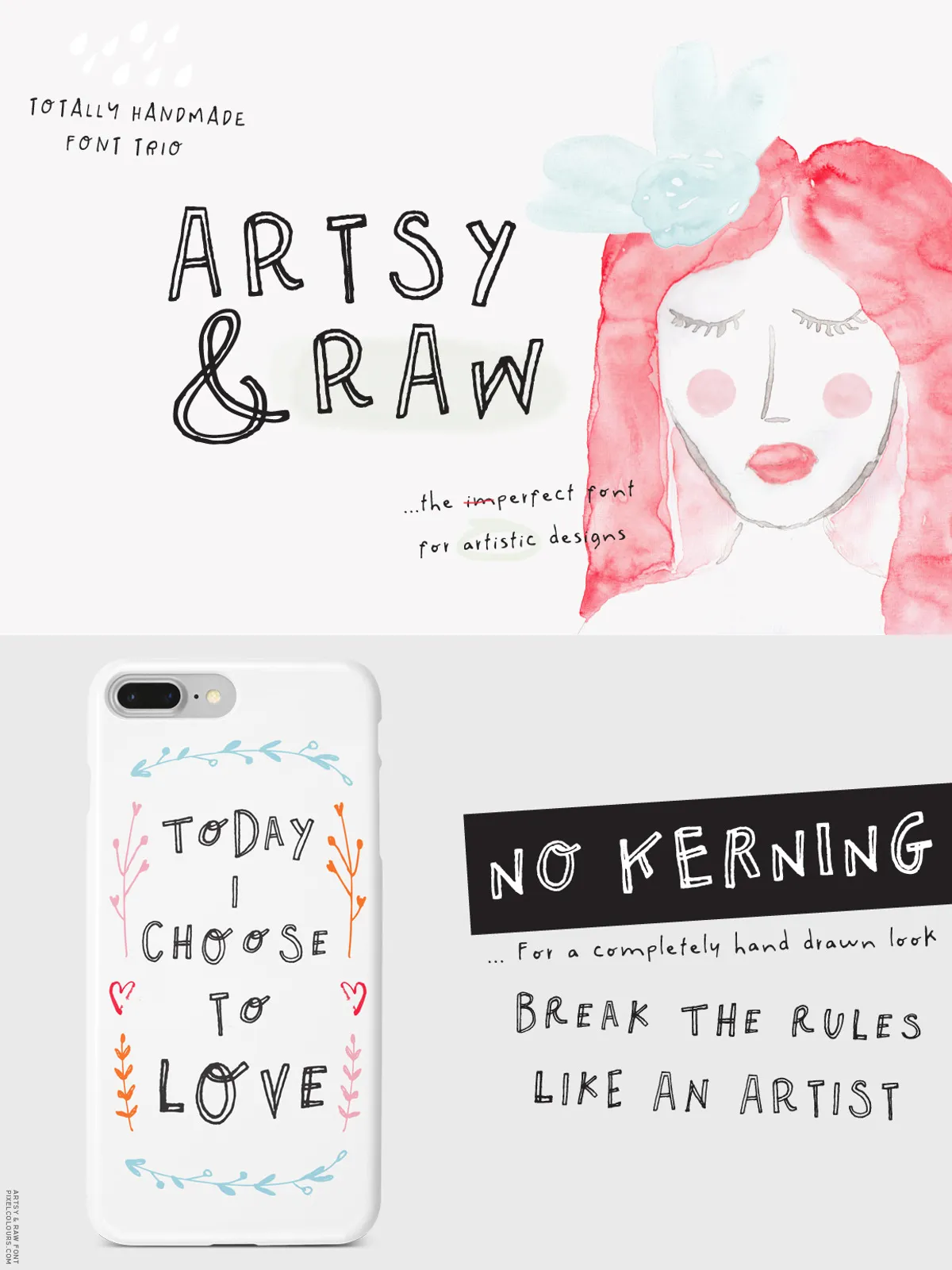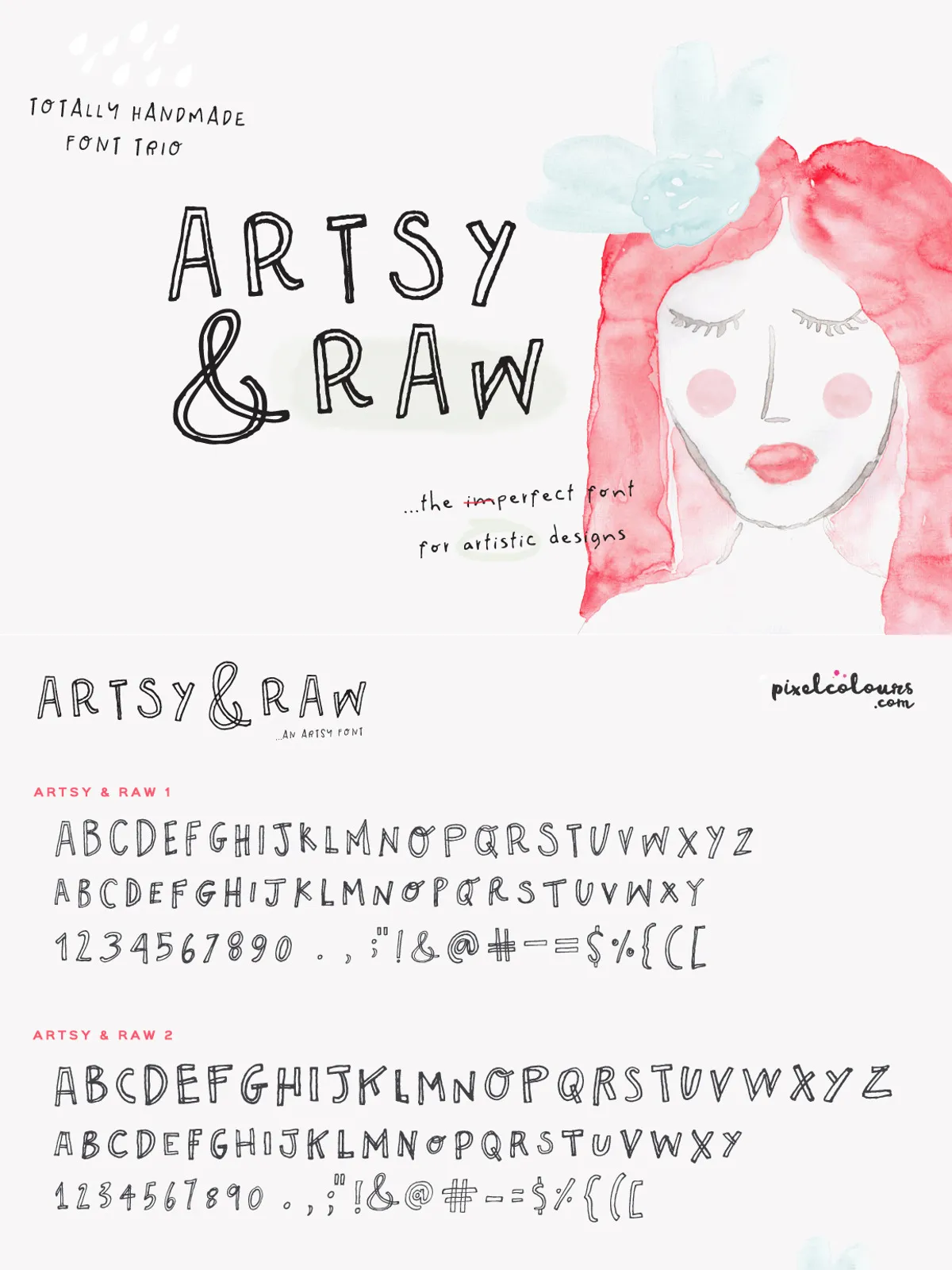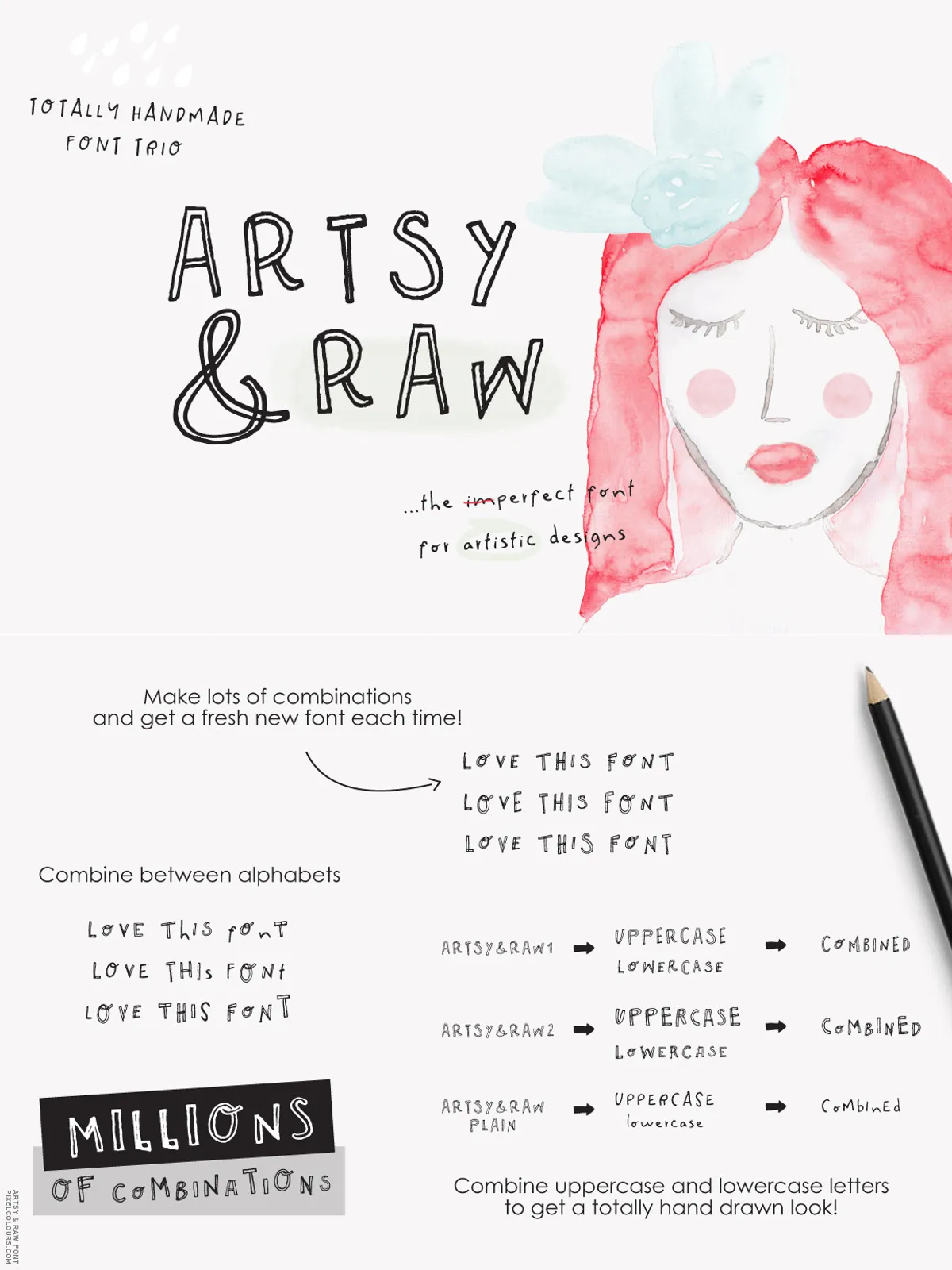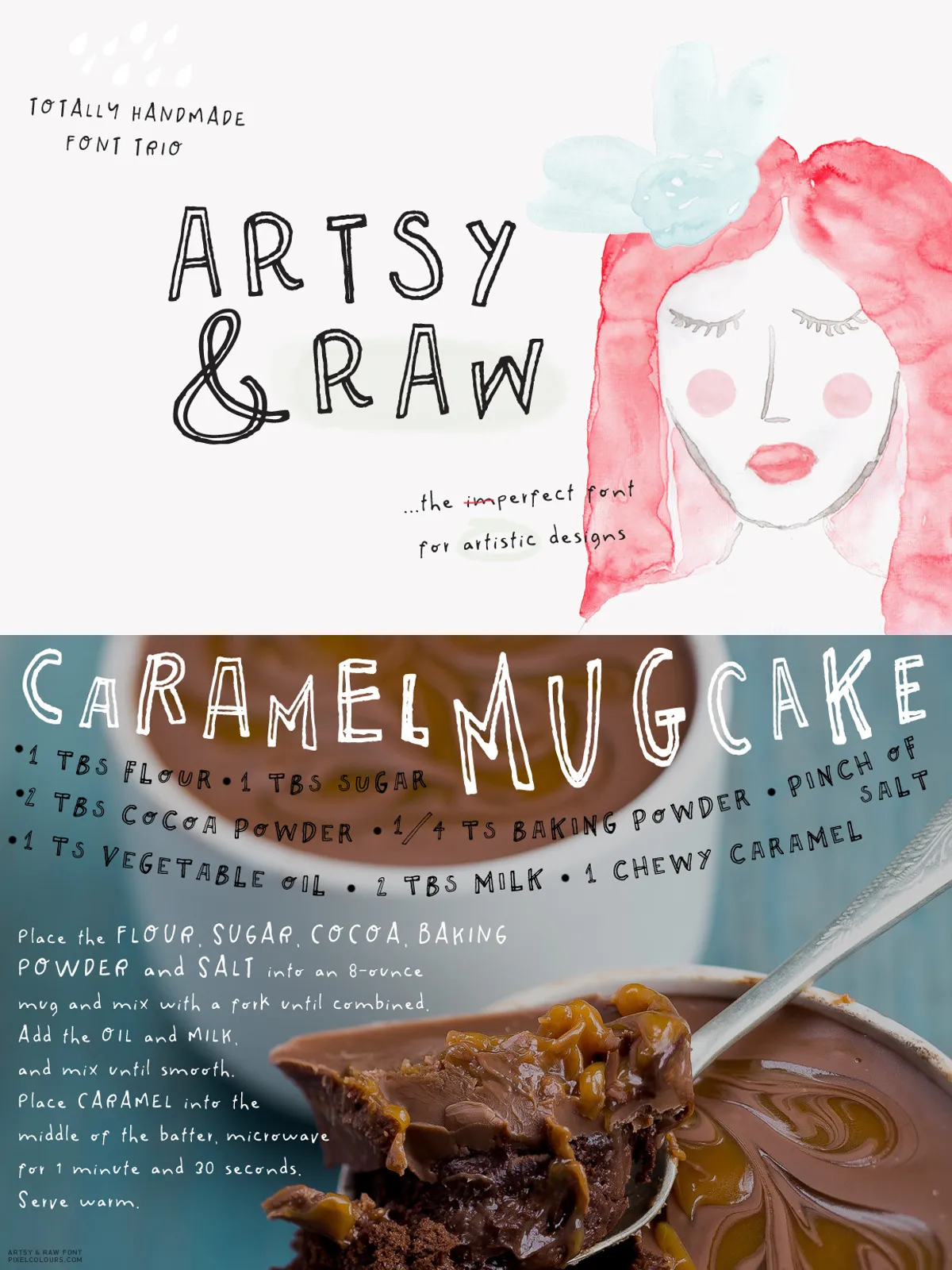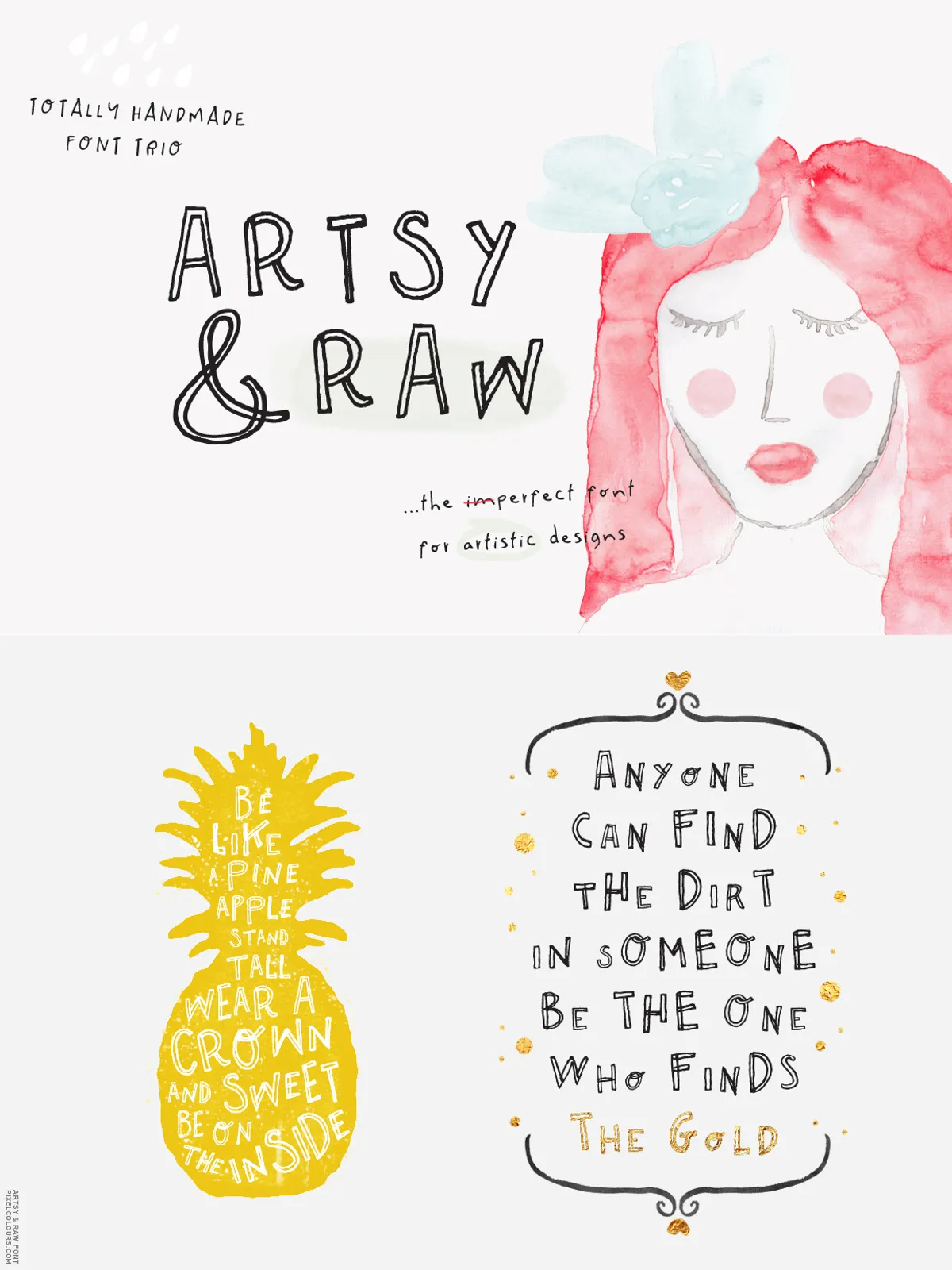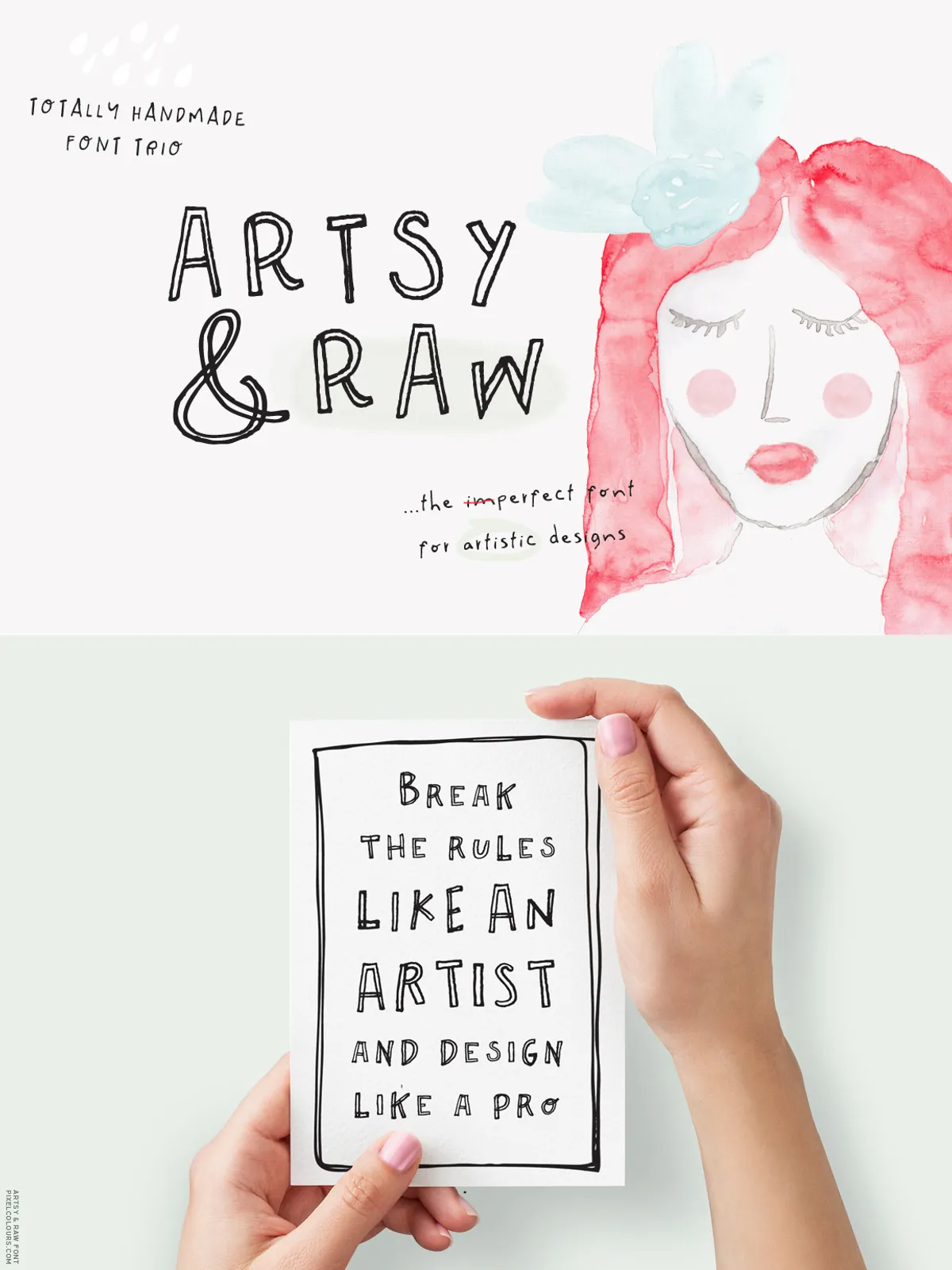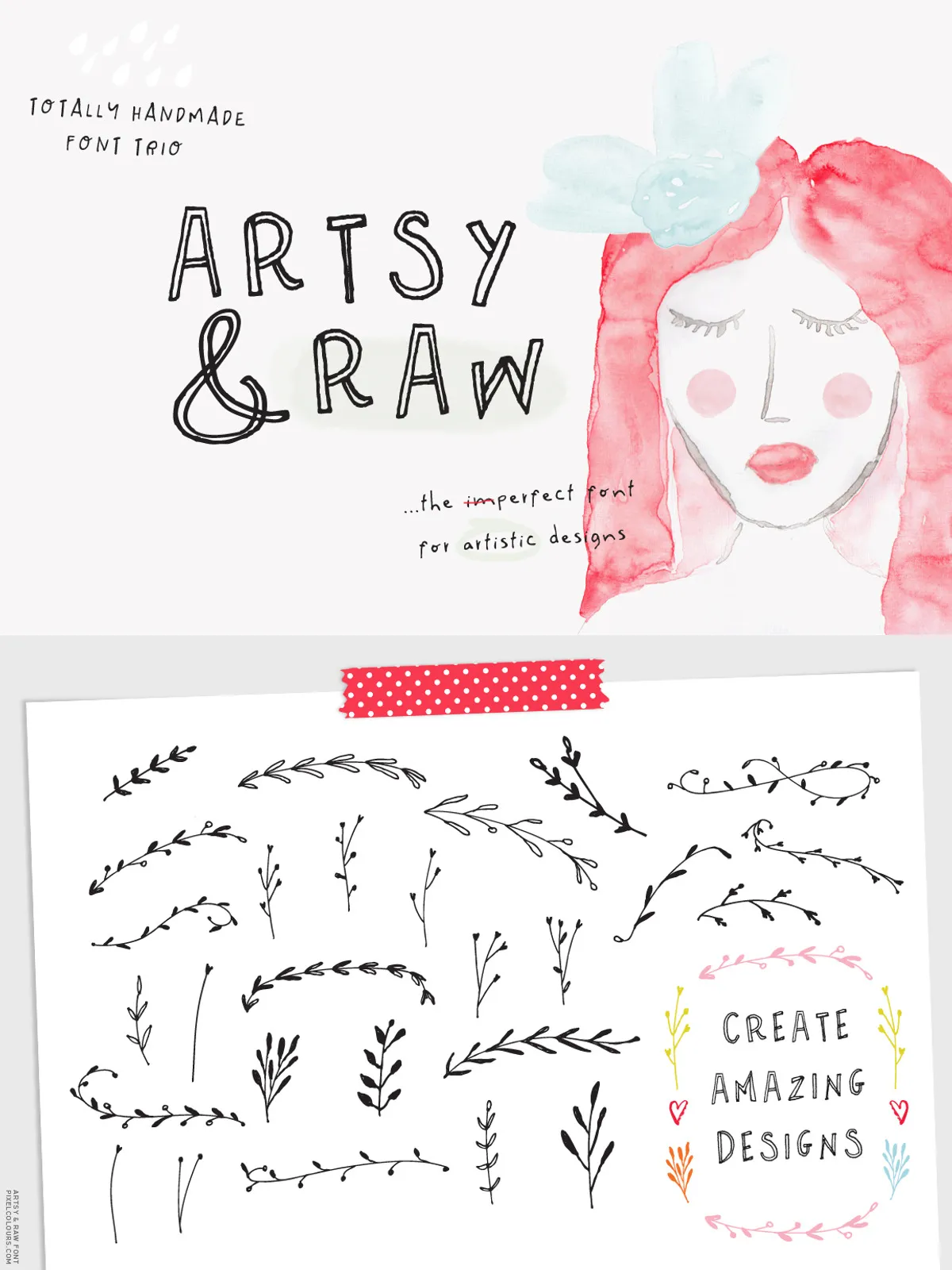
Designers, marketers, and creators looking for a truly organic feel need a typeface that feels hand‑crafted yet professionally refined. Artsy and Raw delivers exactly that. Every glyph is intentionally imperfect, giving you the charm of a handwritten sketch while maintaining the precision required for high‑quality branding. The family includes three distinct styles—Artsy and Raw 1, Artsy and Raw 2, and Artsy and Raw Plain—each packed with uppercase, lowercase, numbers, and punctuation.
Why Choose Artsy and Raw?
• Authentic Hand‑Drawn Aesthetic – The subtle irregularities and organic strokes make every word feel personal and unique.
• Versatile Application – Ideal for quotes, logos, branding, greeting cards, invitations, and more.
• Bonus Creative Assets – 150 hand‑drawn vector ornaments, watercolor flowers, and hearts are included to accelerate your workflow.
• Complete Character Set – Full alphabet, numerals, and punctuation give you total typographic freedom.
Key Features That Drive Your Projects Forward
- Hand‑Drawn Authenticity – Each character retains the natural, slightly imperfect line work that feels crafted in real time.
- Rich Decorative Assets – 150 vector ornaments, watercolor flowers, and heart graphics let you add playful details without leaving the design suite.
- Full Language Support – All basic Latin characters, numbers, and punctuation are covered, ensuring seamless multilingual use.
Ideal Use‑Cases
Artsy and Raw shines in an array of creative scenarios:
- Brand Identity – Create a memorable logo or wordmark that feels hand‑crafted.
- Print Materials – Greeting cards, wedding invitations, and boutique packaging gain a warm, personal touch.
- Digital Media – Use the variable style for web headers, app UI, and social media graphics.
- Creative Projects – Posters, album covers, and editorial spreads benefit from the font’s expressive strokes.
| Styles | 3 styles (Artsy & Raw 1, Artsy & Raw 2, Artsy & Raw Plain) |
| Character Set | Uppercase, lowercase, numerals, punctuation |
| Additional Assets | 150 vector ornaments, watercolor flowers, watercolor hearts |
Why It Works for You
When you choose Artsy and Raw, you receive a complete typographic system that eliminates the need for multiple separate fonts. The hand‑drawn texture adds personality instantly, while the included decorative assets let you finish a design in minutes rather than hours.